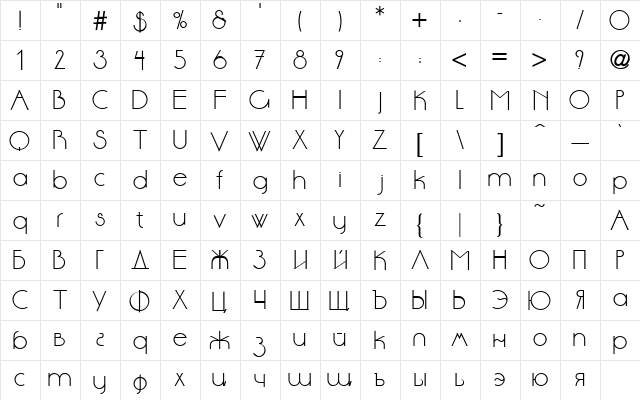
ft26 Regular
| Foundry | FT Content Provider |
| Designer | FT Content Provider |
Design Context for ft26 Typeface
ft26 offers clean, dependable letterforms without strong stylistic allegiance, making it a practical choice for designers who need flexibility.